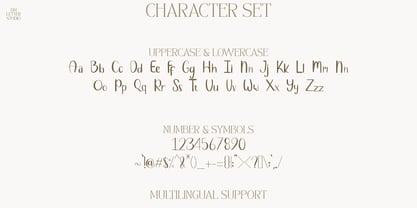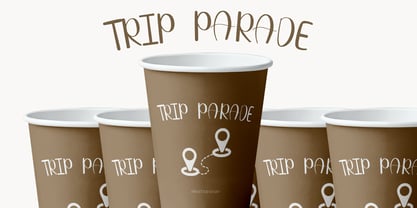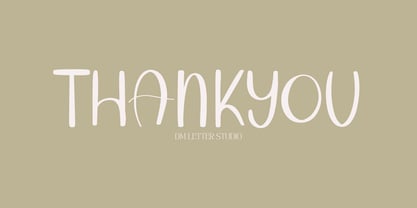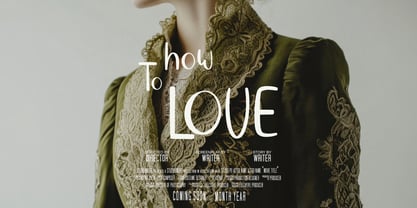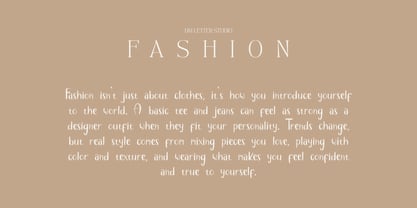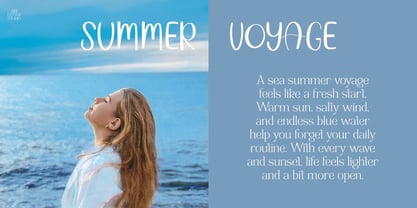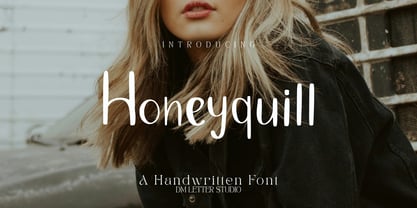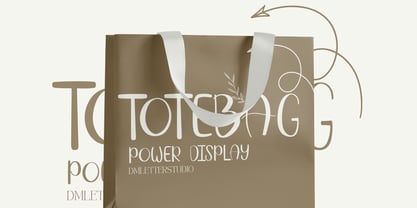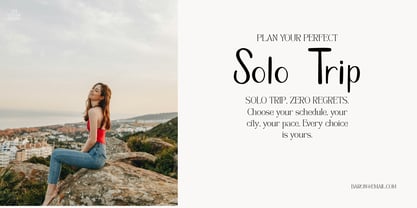
Honeyquill
by DM Studio
The Honeyquill Font Family was designed by Dimas Prasetyo and published by DM Studio. Honeyquill contains 1 styles. More about this family
Meet Honeyquill Font is a warm, handwritten script with sweet, flowing curves. Letters feel soft and friendly. Strokes stay smooth, so your words read fast on invitations, logos, packaging, stickers, and thumbnails. Use it for wedding suites, bakery brands, candle labels, and cozy lifestyle posts. Moreover, Honeyquill pairs beautifully with modern serifs and clean sans fonts, which keeps layouts elegant and clear. Where Honeyquill Font shines Set short phrases like “Sweet Home,” a couple’s names, or a boutique logo. Then add thin lines, light shadows, or a soft foil texture for depth. Since spacing is tuned for headlines, mockups come together in minutes. As a result, you can launch coordinated sets for menus, tags, and social graphics with less editing. Plus, the smooth curves keep vinyl cuts and foil stamps crisp at any size. Fast setup, polished results Install the files and start designing right away in Canva, Photoshop, and Illustrator. Also, the outlines are clean for letterpress, emboss, deboss, and engraving. Consequently, cards, boxes, jars, and acrylic signs all look consistent and premium. Next, try color stories like honey and cream, sage and ivory, or blush and cocoa to match season and mood. Finally, save a base template with headline, subhead, and accent line so new SKUs roll out quickly. Design tips for Honeyquill Font Keep copy short and let the letterforms breathe. Pair Honeyquill headlines with a quiet serif for body text and prices. Meanwhile, add micro-tracking on all caps, or tighten name pairs for a luxe look. Because the script is smooth, textured paper, wax seals, and metallic details lift perceived value. However, avoid long sentences on tiny labels. Names, dates, and concise phrases hit hardest. What you get inside Uppercase, lowercase, numbers, punctuation Selected stylistic alternates and swashes for key letters Multilingual Latin support Curves tuned for foil, letterpress, engraving, and clean vinyl cutting Why creators choose Honeyquill You want romance with professional clarity. Honeyquill delivers both. It stands out in crowded feeds, speeds production, and scales from mini tags to signage without losing grace.
Designers: Dimas Prasetyo
Foundry: DM Studio